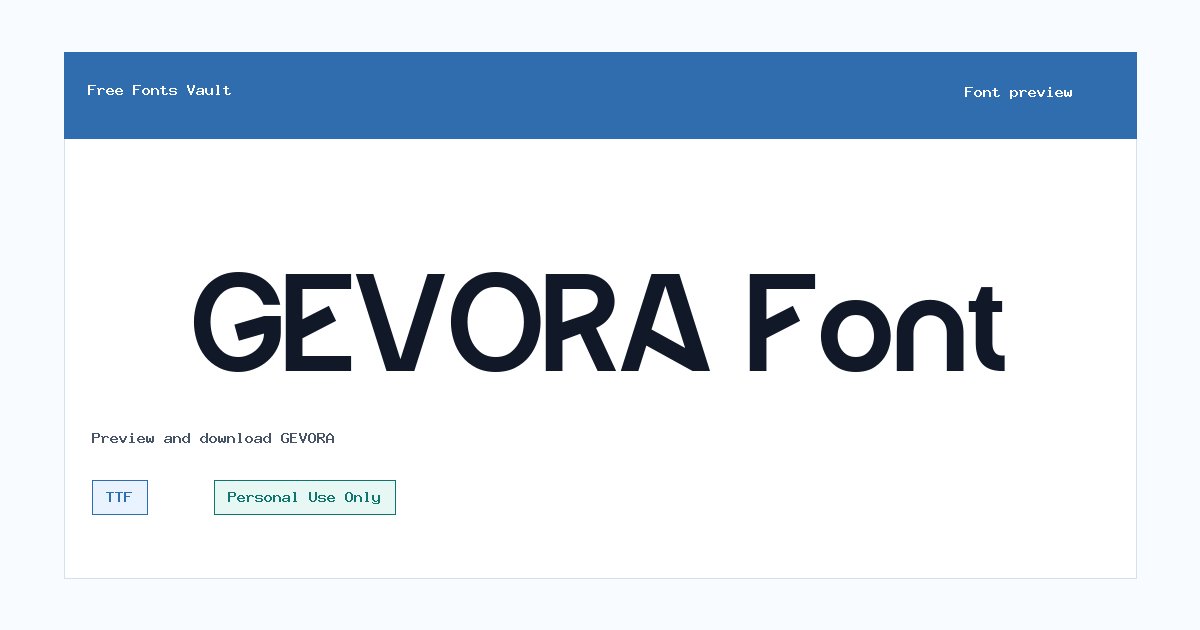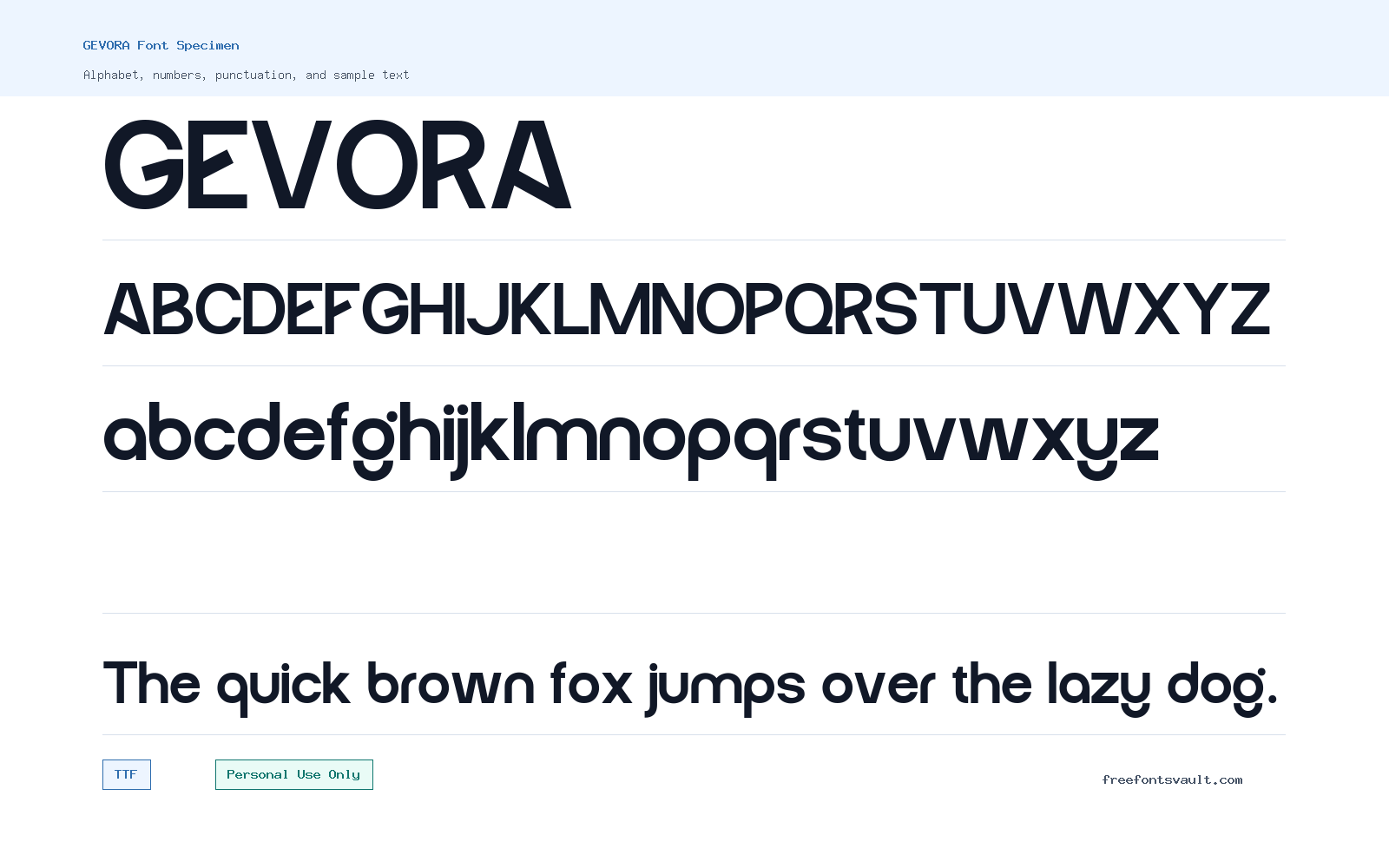
GEVORA
GEVORA font.
GEVORA is a clean sans serif display font by FLAWLESSANDCO, built for short, polished typography such as logos, posters, headings, and brand-style mockups. The font file on this page is a regular TTF style and the license information marks it for personal use only.
About GEVORA Font
GEVORA has the feel of a modern corporate display face: simple letterforms, a structured rhythm, and a neat sans serif finish. It works best when the words need to look clear, composed, and intentional rather than decorative or playful. In previews, try it first with uppercase names, short slogans, product titles, and clean one-line headings. Those settings let the spacing and shape of the letters do most of the work without forcing the font into long reading passages.
Because GEVORA is offered as a single regular weight in TTF format on this page, it is most useful as a headline or identity font rather than a complete text system. Use it for logo drafts, presentation covers, social graphics, web hero mockups, packaging concepts, poster titles, and business-card style layouts. For body text, pair it with a quieter sans serif or a readable serif that has multiple weights and comfortable spacing. If you use GEVORA in a logo concept, test the wordmark at small sizes, in black and white, and with wide and tight letter spacing before choosing the final version.
- Useful for short typography such as logos, headlines, posters, and branding mockups
- External listings describe the broader product as a modern corporate display font
- Logo drafts and wordmark concepts
- Poster titles and event headings
- Website hero sections and app presentation mockups
- Business branding previews and company profile layouts
- Social media graphics with short, direct text
- Packaging or label concepts where a clean display style is needed
The designer is listed as FLAWLESSANDCO. No separate foundry information is confirmed on this page.
Use GEVORA where the text is short and needs a clean, confident display style. Try moderate letter spacing for logos and wide poster titles, but avoid using it for long paragraphs unless you have tested readability carefully. For web mockups, use it for headings and pair it with a neutral body font such as a plain sans serif. For logo work, remember that a font license and a trademark registration are separate issues; a commercial font license does not automatically grant trademark rights.
Who designed GEVORA?
GEVORA is credited to FLAWLESSANDCO.
What style of font is GEVORA?
GEVORA is a sans serif display font with a clean, modern look suited to short text and branding-style layouts.
Is GEVORA good for body text?
It is better for headings, titles, and short display text. For paragraphs, pair it with a highly readable text font.
How should I pair GEVORA with another font?
Pair it with a simple, readable sans serif or serif for body copy. Keep GEVORA for the main title or brand word, then let the supporting font handle smaller text.